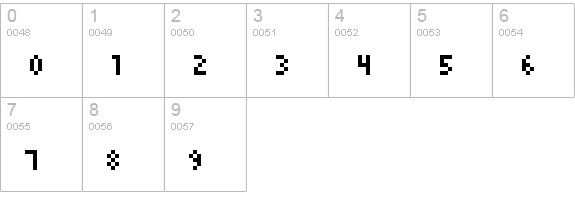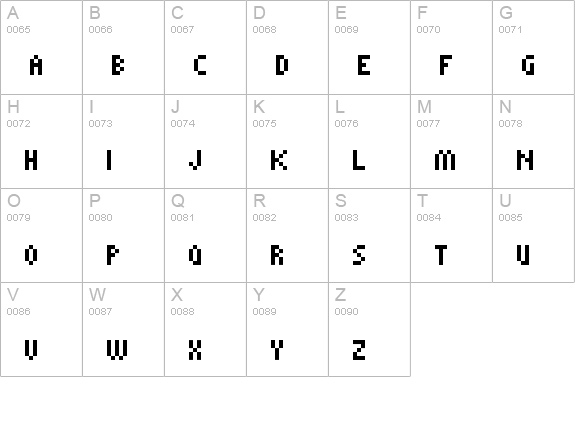
Qwerty-Two Font Details
Qwerty-Two font is a stunning display typeface that effortlessly combines elegance with modernity. Its sleek and clean lines give it a sophisticated appearance, making it perfect for a wide range of design projects. Designed with versatility in mind, Qwerty-Two font can be used for both headings and body text, making it a truly versatile choice for designers. Its crisp and clear letterforms ensure legibility at any size, while its unique and distinctive style adds a touch of personality to any design. What makes Qwerty-Two font even more appealing is that it is available for free download at FontsMarket.com. Yes, you read that right – this exquisite font can be yours without having to spend a single penny. FontsMarket.com is a renowned platform for font enthusiasts, offering a vast collection of high-quality fonts for free. Whether you need a typography solution for your personal projects or professional designs, Qwerty-Two font is the perfect choice. Its free availability ensures that you can create stunning visuals without breaking the bank. So why wait? Head over to FontsMarket.com and download Qwerty-Two font today to elevate your designs to a whole new level of sophistication and style.